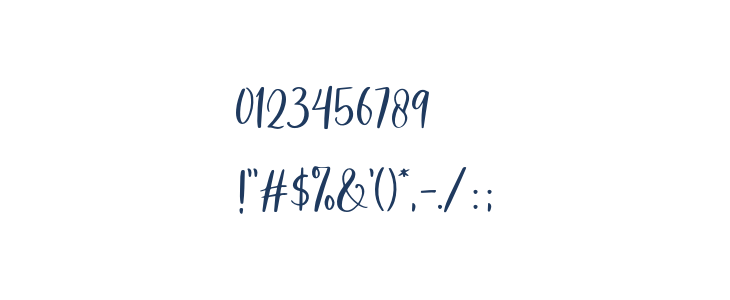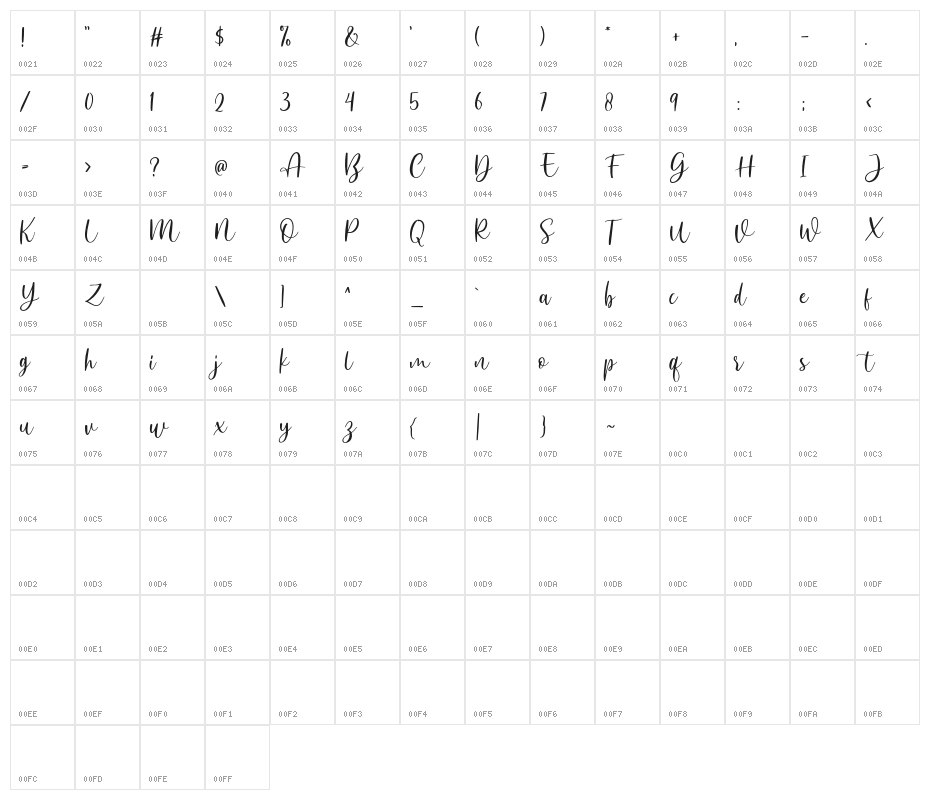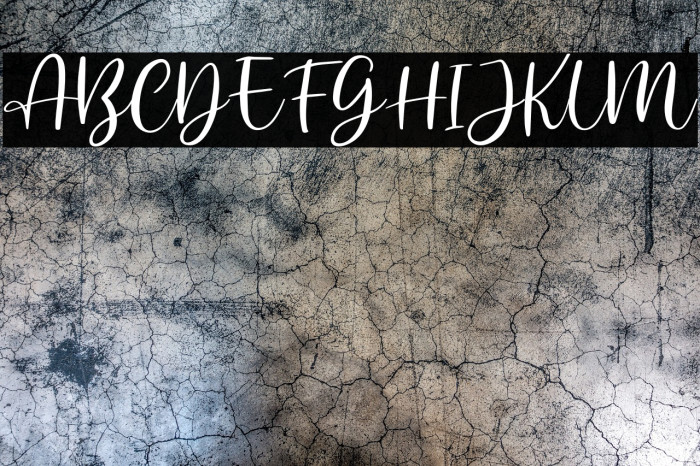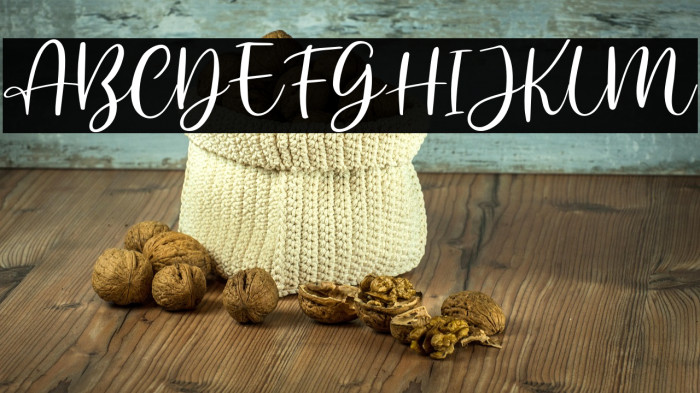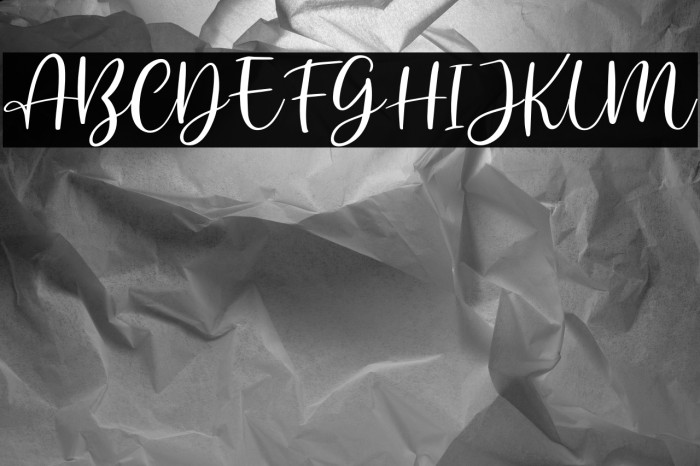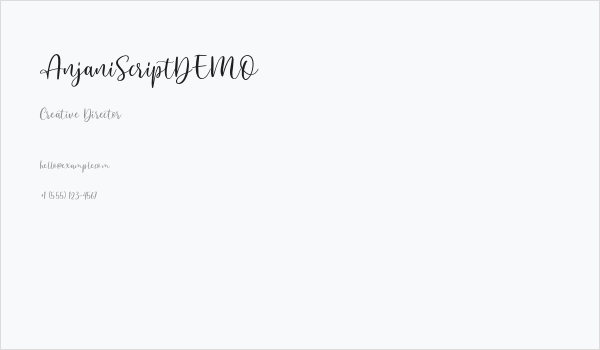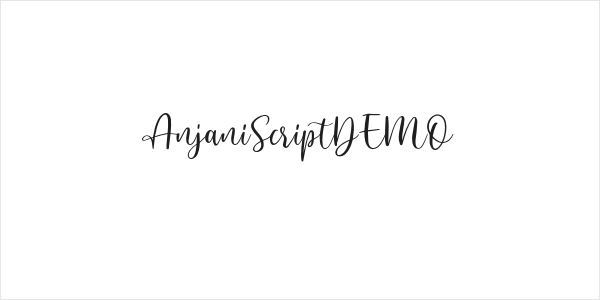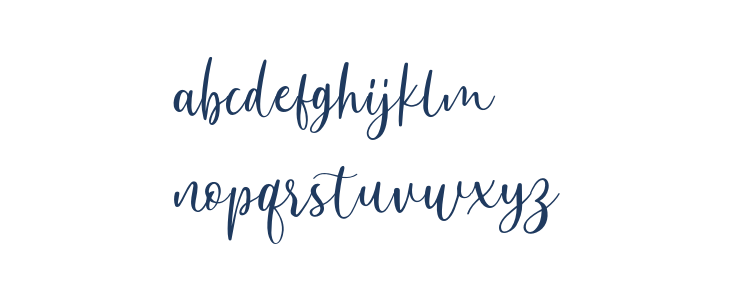
AnjaniScriptDEMO Font
AnjaniScriptDEMO Description
This font features a lively and flowing script style, characterized by its elegant and smooth curves. The letters are interconnected, giving it a handwritten appearance that is both sophisticated and approachable. The uppercase letters are slightly more embellished, with graceful loops and swashes, while the lowercase letters maintain a consistent rhythm and balance. The numerals and special characters complement the overall style, maintaining the same fluidity and charm. This font is ideal for projects that require a personal touch, such as invitations, greeting cards, and branding materials.
ContrastMedium
Overall StyleDecorative
Use CaseLogos, Invitations, Personal stationery
Proposed ProjectsIdeal for wedding invitations, greeting cards, branding, and personal stationery.